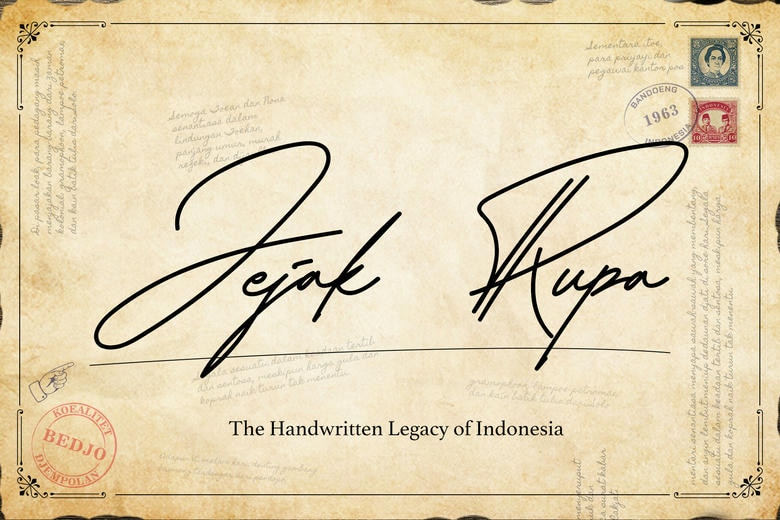
Jejak Rupa Font
Jejak Rupa is a signature font that is based on handwritten nature of the Indonesians of the 1970s-1990s and specifically the ones written in love letters, postal archives and official signatures. The typeface is authentic, expressive and nostalgic and has the coziness of handwritten communication before the digital era.
It works best with heritage branding, traditional product packaging, vintage wedding invitations or editorial work centered on local culture. Jejak Rupa is not only a design tool but also a tribute to the culture that introduces the beauty of imperfection, personality, soul into present typography.
Jejak Rupa Handwritten Script Font